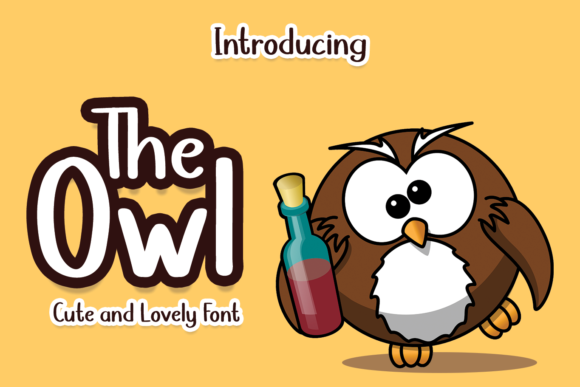
Unleash Your Craft with The Owl Font: A Playful Display Font for Enchanting Designs
In the realm of creativity, where imagination weaves its magic, The Owl Font emerges as an enchanting display font, ready to transform your designs into captivating works of art. Created by the esteemed Erik Studio, The Owl beckons you to embark on a whimsical journey, where words dance with joy and characters burst with personality.
With its friendly characters and effortlessly readable style, The Owl Font is the perfect companion for a multitude of creative projects. Picture your designs adorned with this playful display font, gracing the pages of books and magazines, or adorning apparel with an air of uniqueness. Banners and posters will come alive with The Owl's infectious charm, capturing attention and leaving an indelible mark on your audience.
But The Owl Font is more than just a collection of letters; it's an invitation to let your creativity soar. Its versatility knows no bounds, allowing you to effortlessly craft designs that radiate warmth, playfulness, and a touch of whimsy. Whether you're a seasoned designer or just starting your creative adventure, The Owl Font will elevate your work to new heights.
Immerse yourself in the world of The Owl Font and experience the joy of creating designs that resonate with your audience. Let your imagination take flight as you explore the endless possibilities that this charming display font offers. Unleash the magic within your creativity and watch as your designs transform into captivating masterpieces.